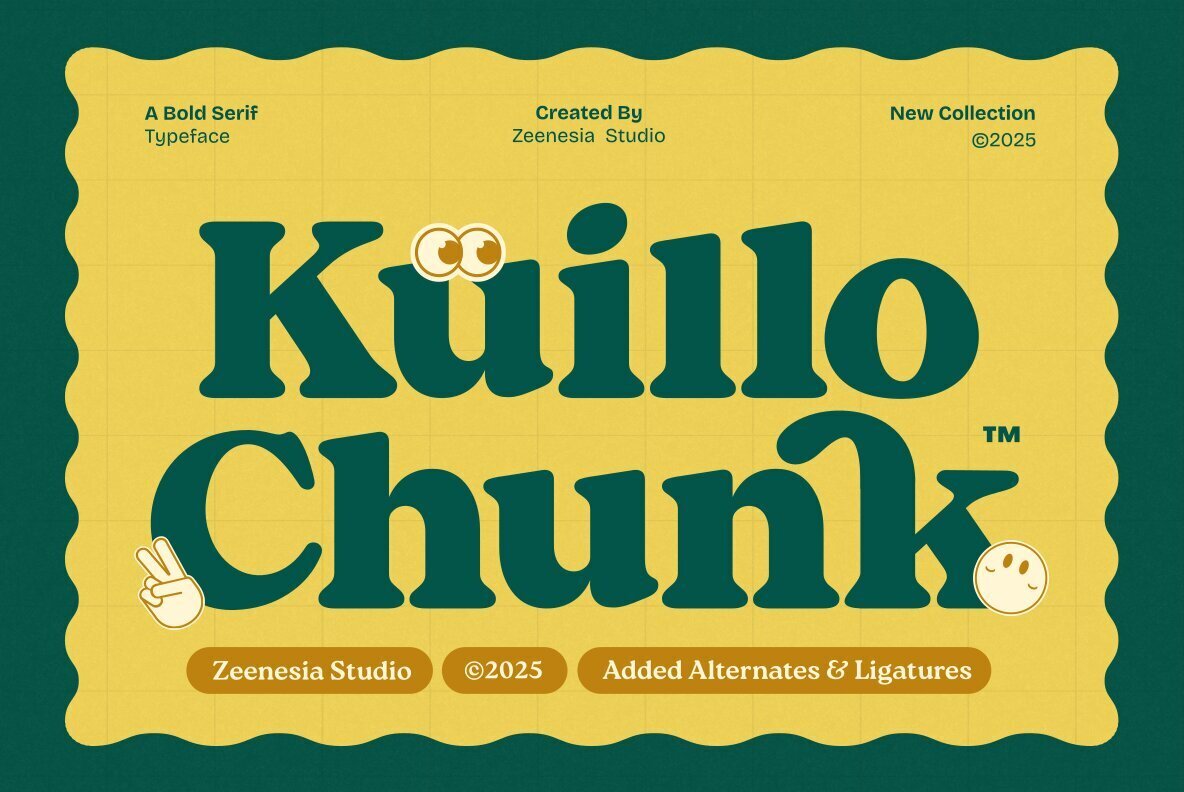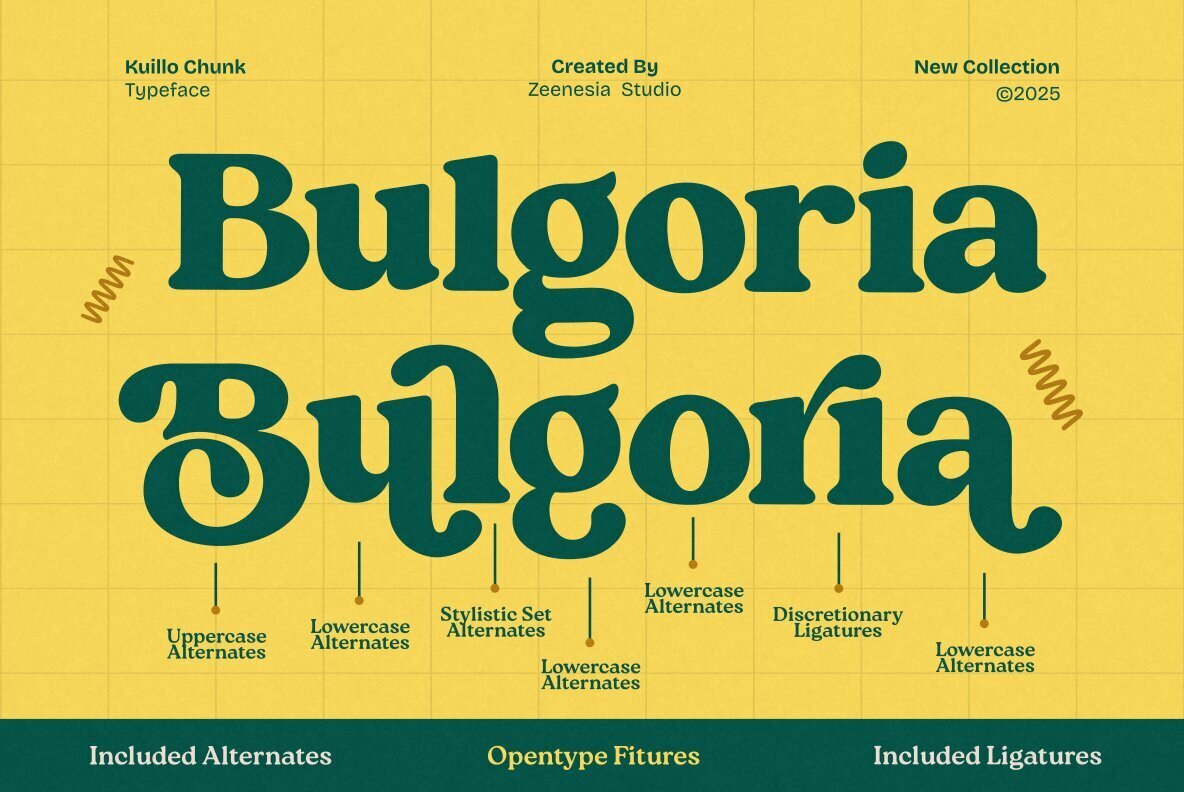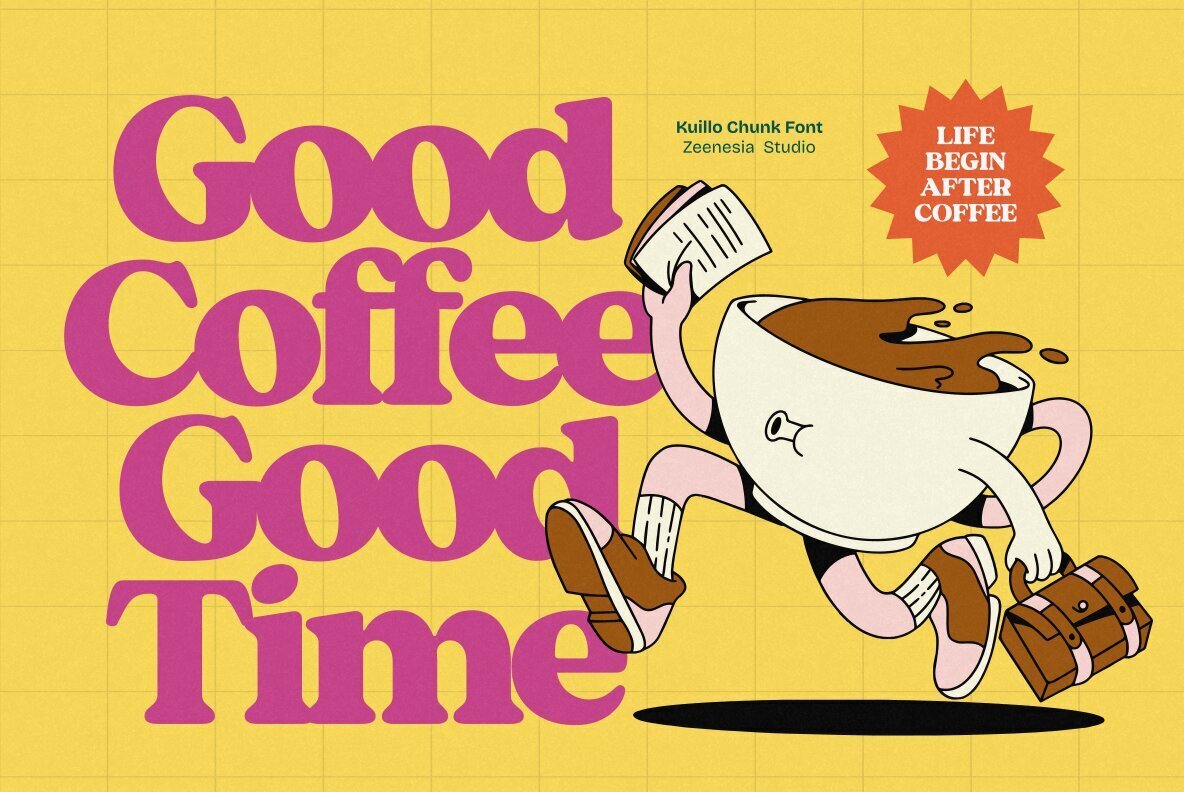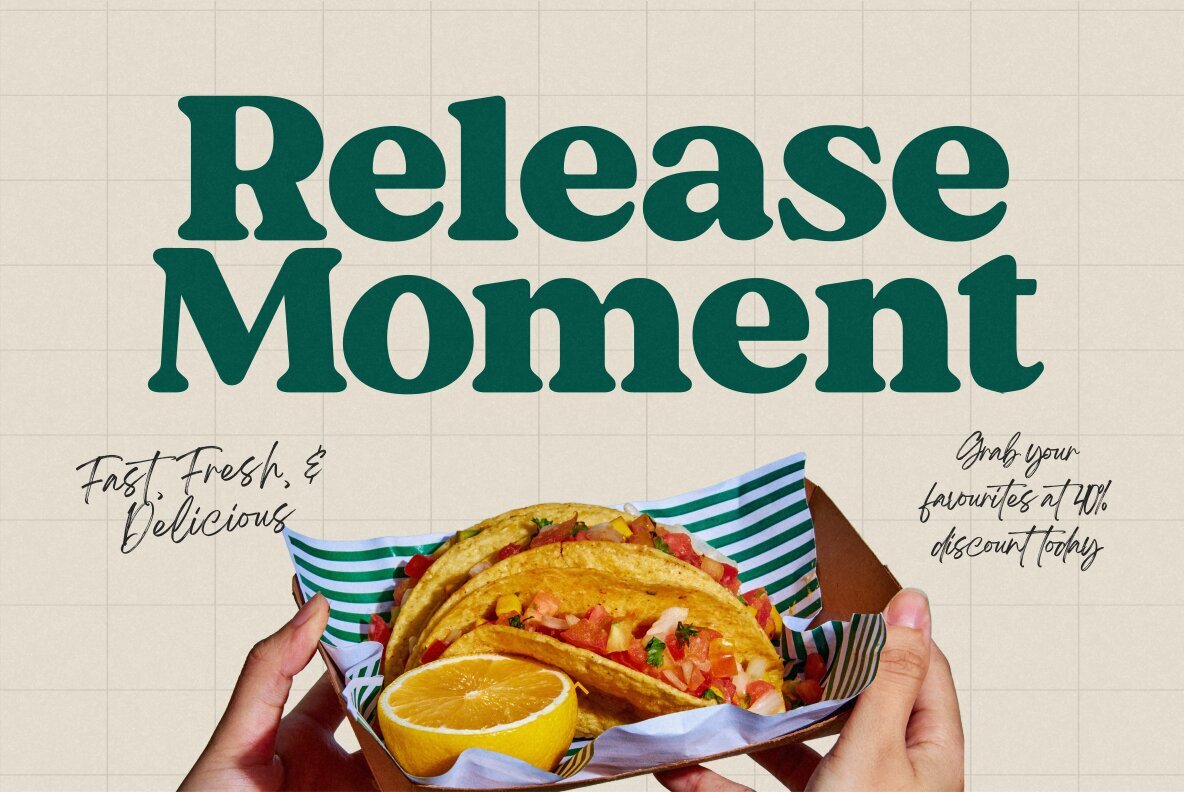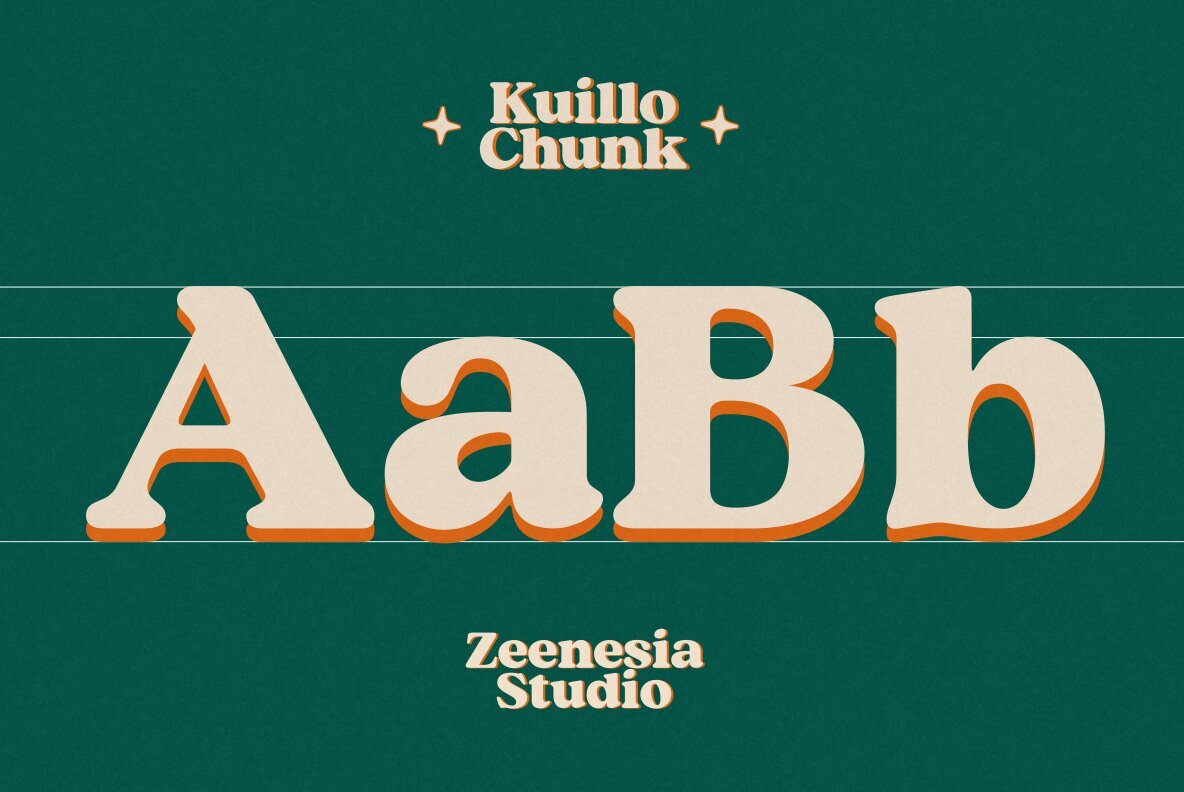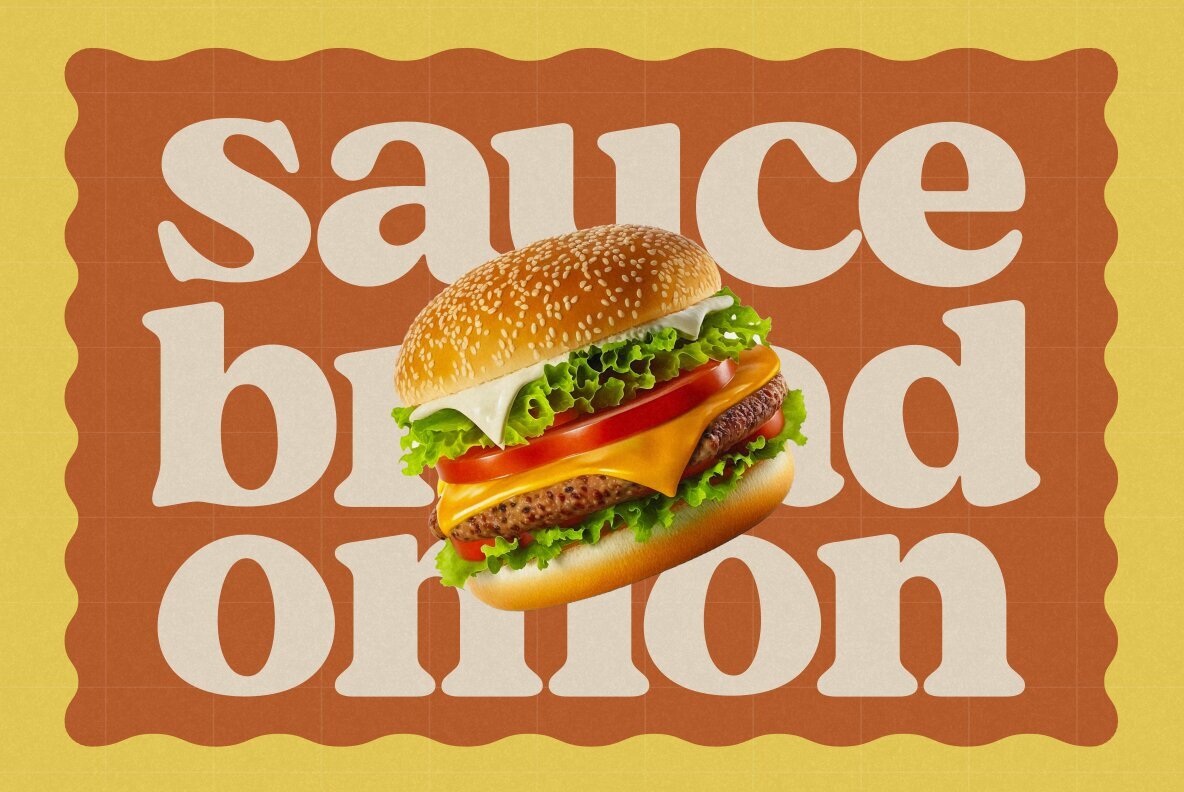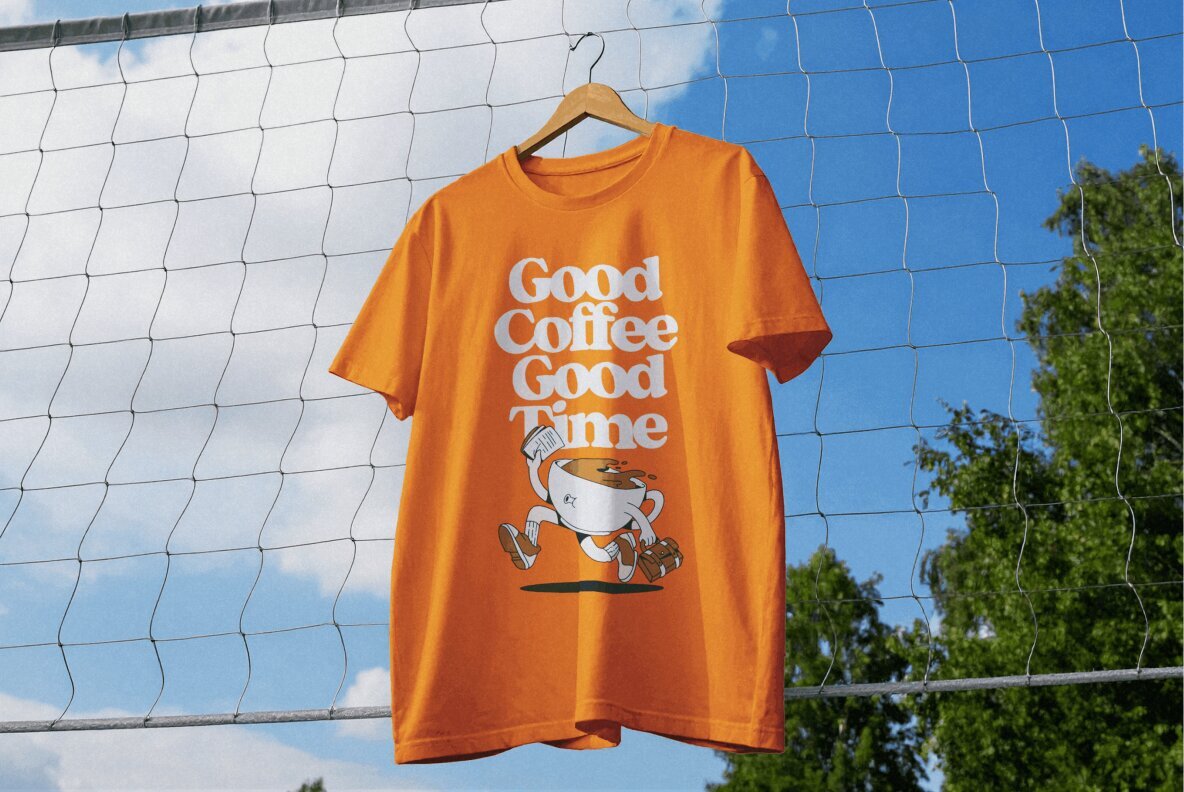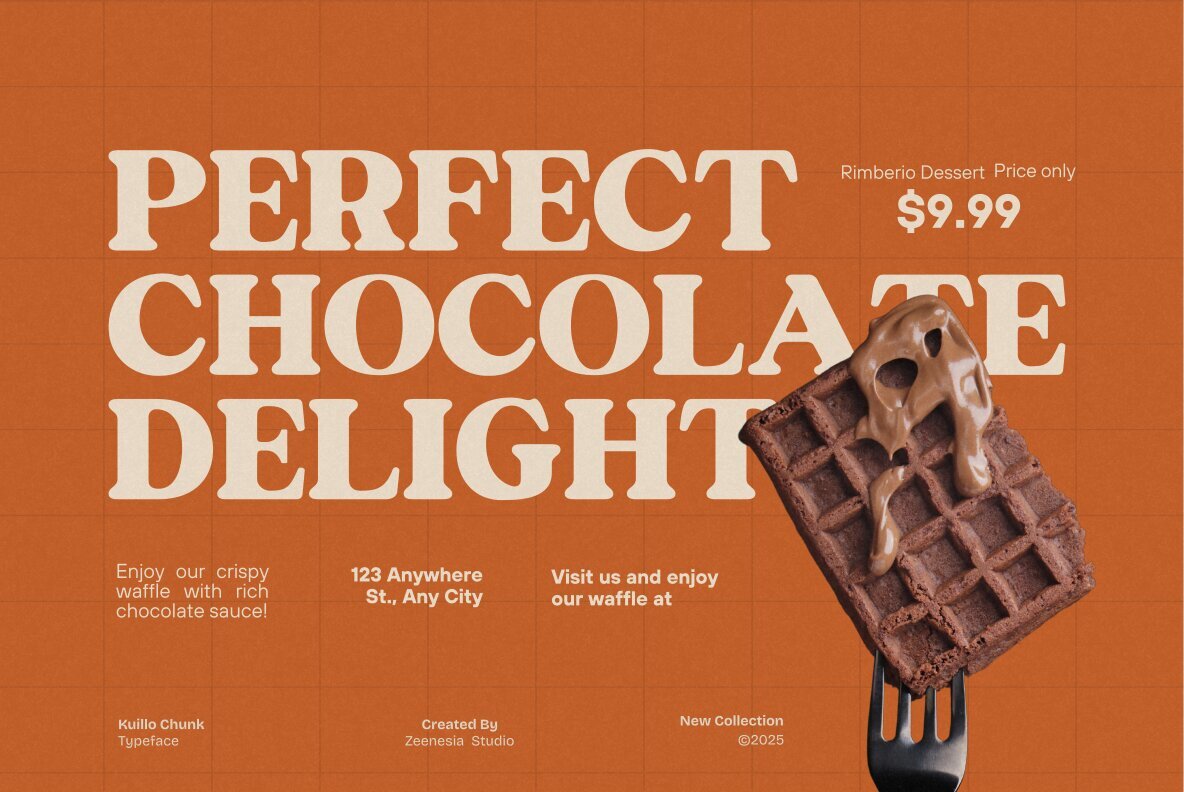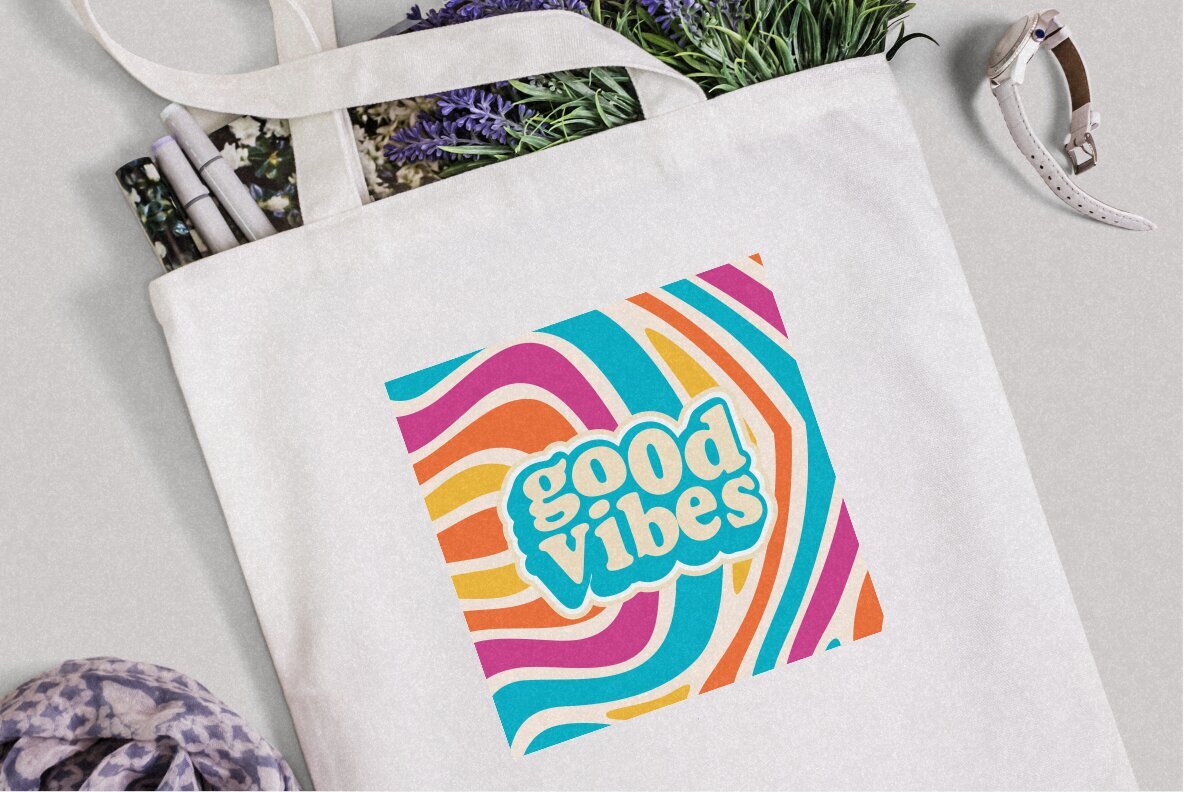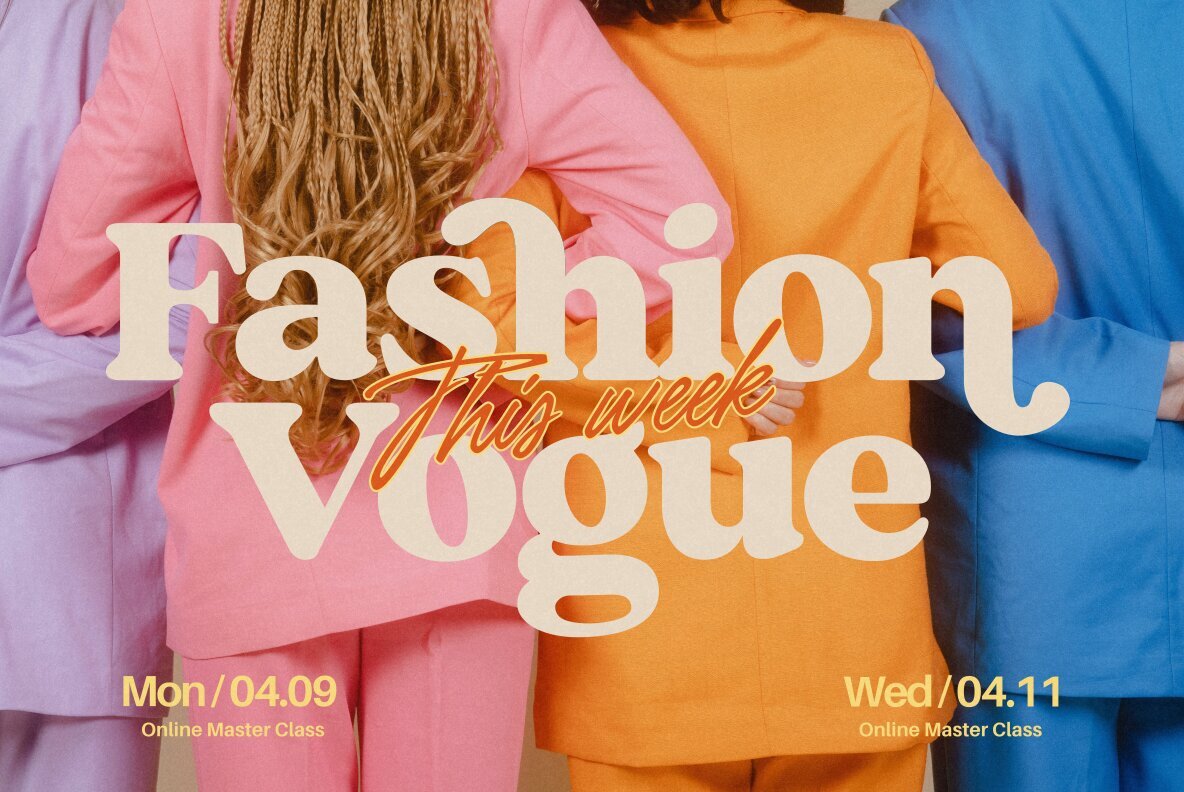
Kuillo Chunk Font
Kuillo Chunk Regular
Kuillo Chunk is a bold serif typeface that masterfully combines playful charm with confident strength. Its chunky letterforms and smooth curves infuse a friendly yet assertive personality, making it ideal for eye-catching headlines, logos, and creative branding endeavors. This typeface includes alternates and ligatures, providing you with the flexibility to add a distinctive and expressive touch to every design. Whether you're crafting vintage-inspired packaging, vibrant posters, or stylish social media graphics, Kuillo Chunk injects warmth and character into your typography.Kuillo Chunk: Bold Serif Typeface with Playful Charm